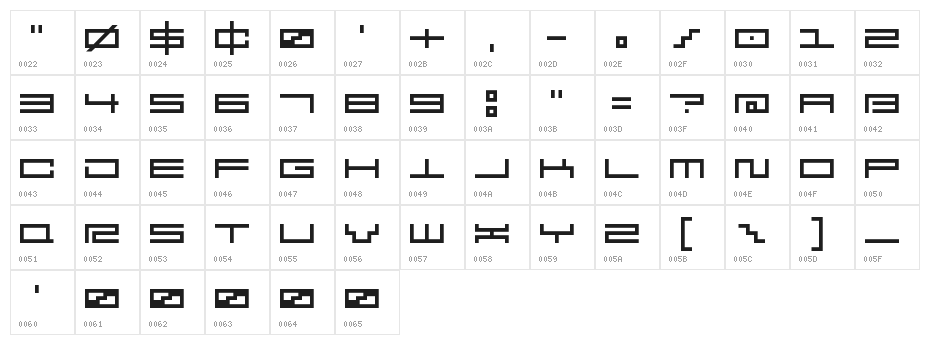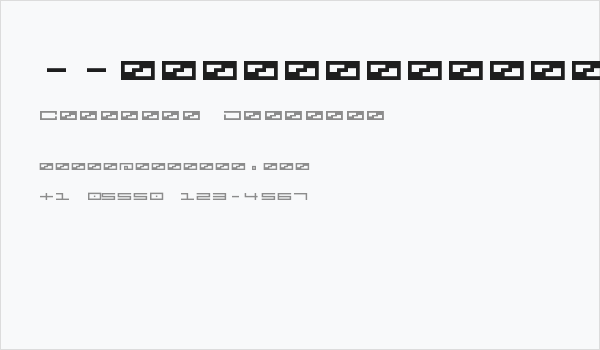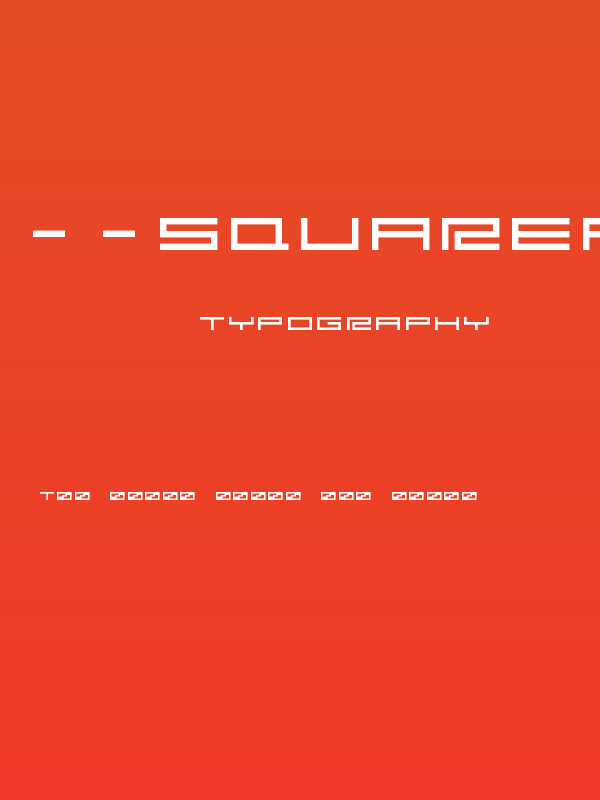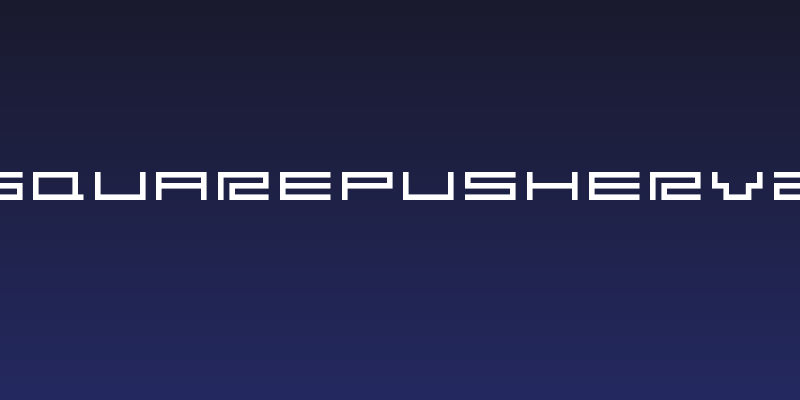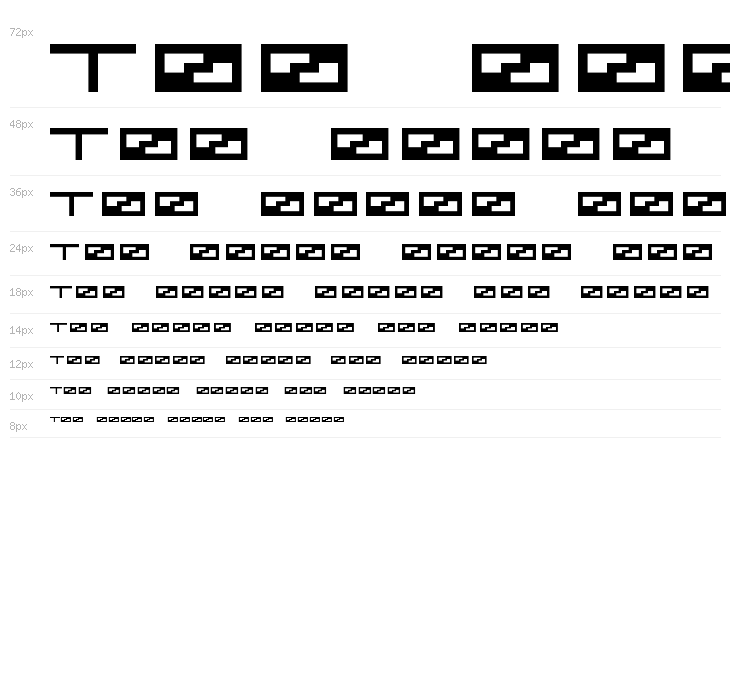
--squarepusherv2-- Font
--squarepusherv2-- Description
This font features a distinctly geometric and futuristic design, characterized by its square and angular letterforms. The uppercase letters are uniform in height, with sharp edges and a consistent stroke width that gives it a mechanical feel. The lowercase letters maintain the same geometric style, ensuring a cohesive look across different cases. Numbers are designed with the same precision, making them easily legible and visually aligned with the alphabet. Special characters are crafted to match the overall aesthetic, providing a complete set for varied uses. The font's design is reminiscent of digital or technological themes, making it suitable for modern and innovative projects.